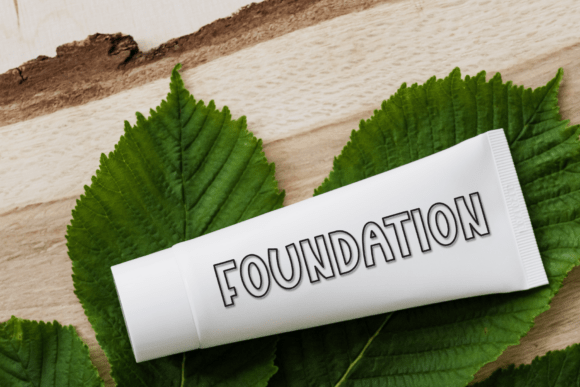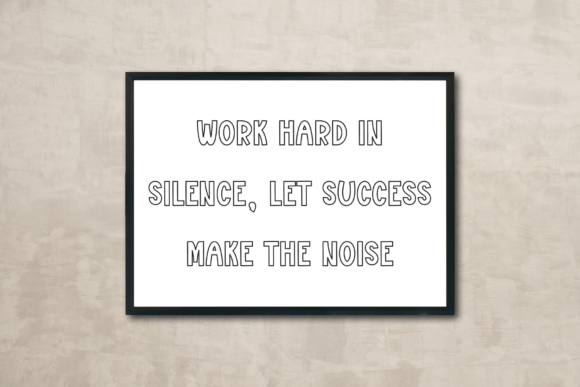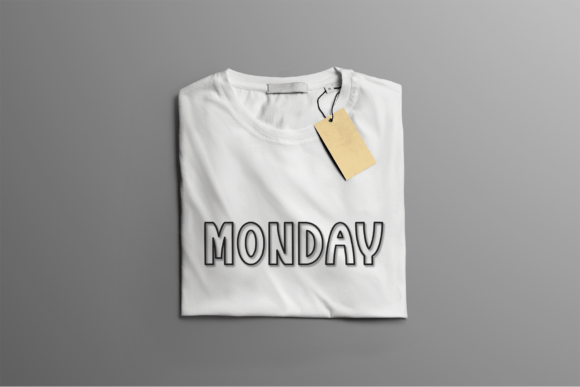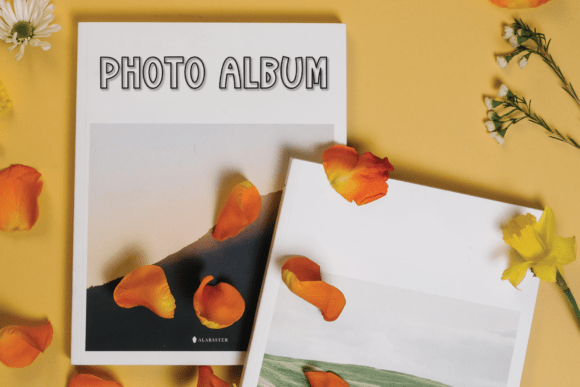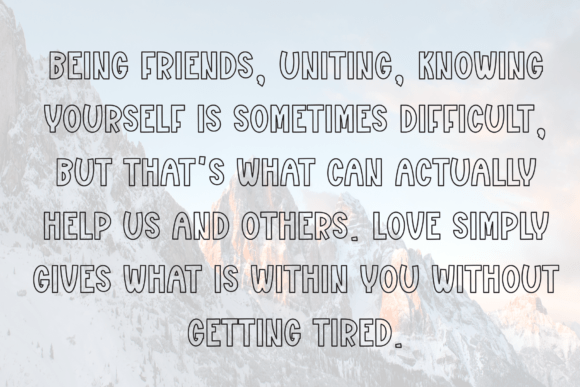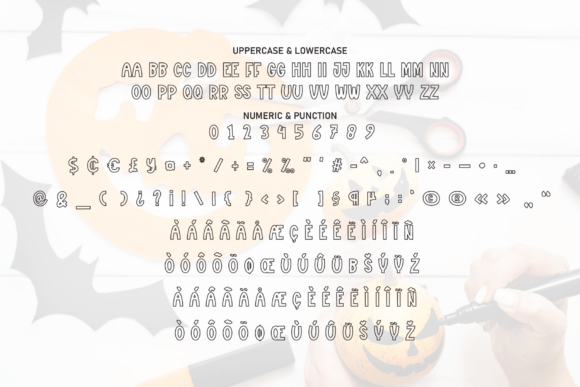
Introduction to Designer Halloween Font
Designer Halloween is a casual display font that blends modern simplicity with a playful, approachable vibe.
Featuring clean shapes, soft edges, and well-balanced letterforms, it captures the charm of relaxed design while maintaining clarity and style Ideal for posters, branding, packaging, and social media graphics, it adds a fresh and friendly touch to any project.
Key Features of Designer Halloween Font
Why Choose Designer Halloween Font?